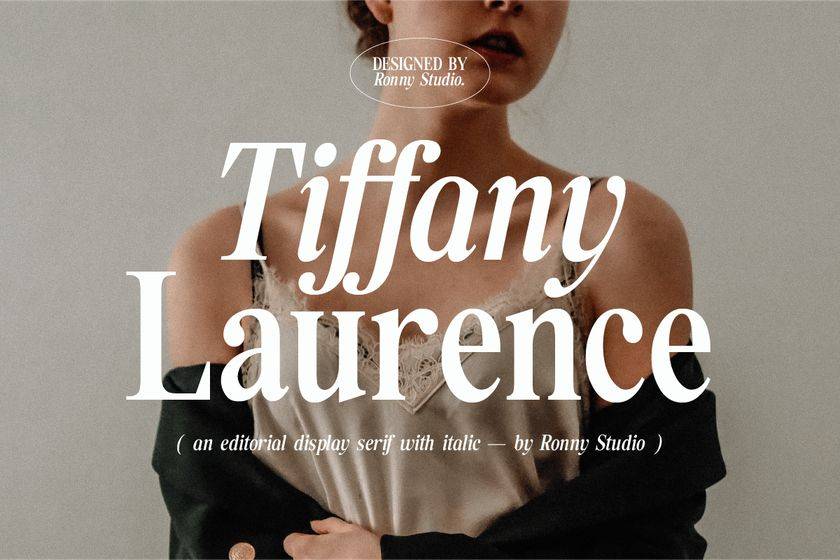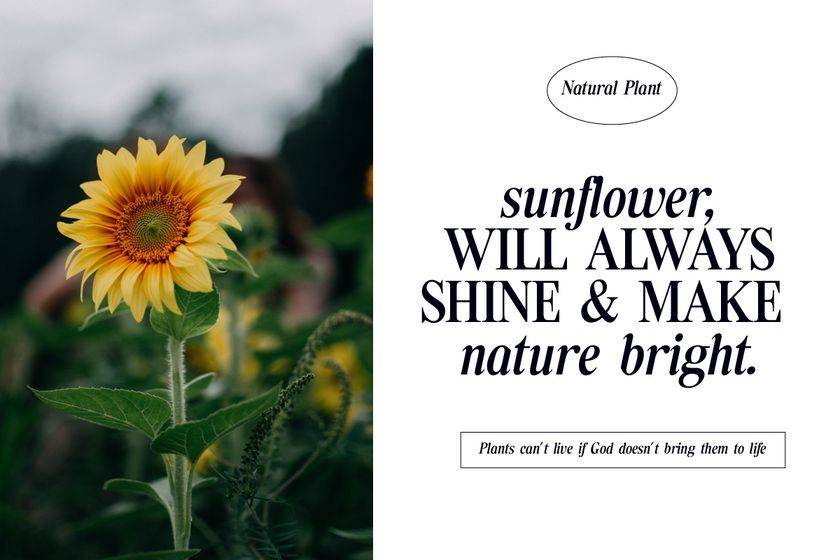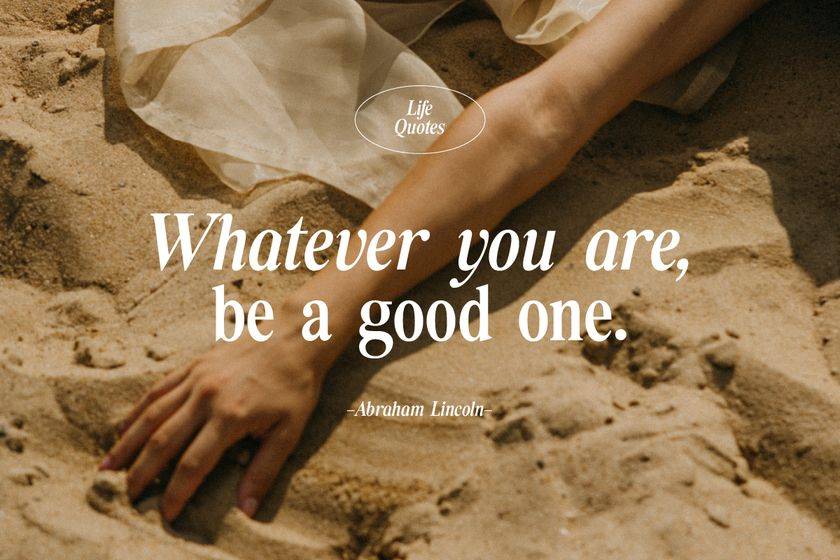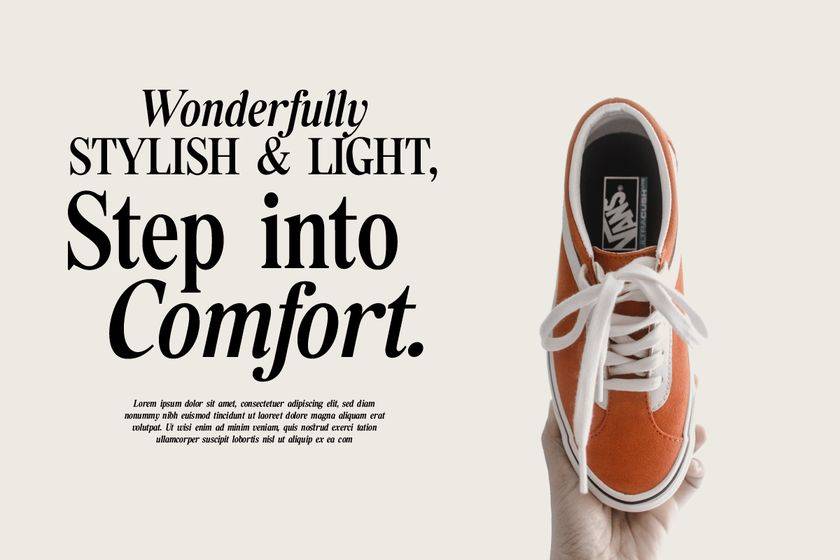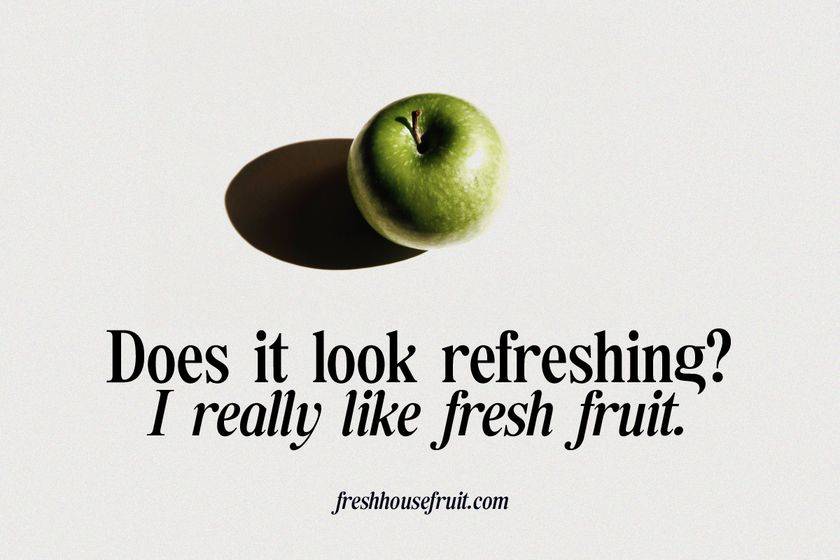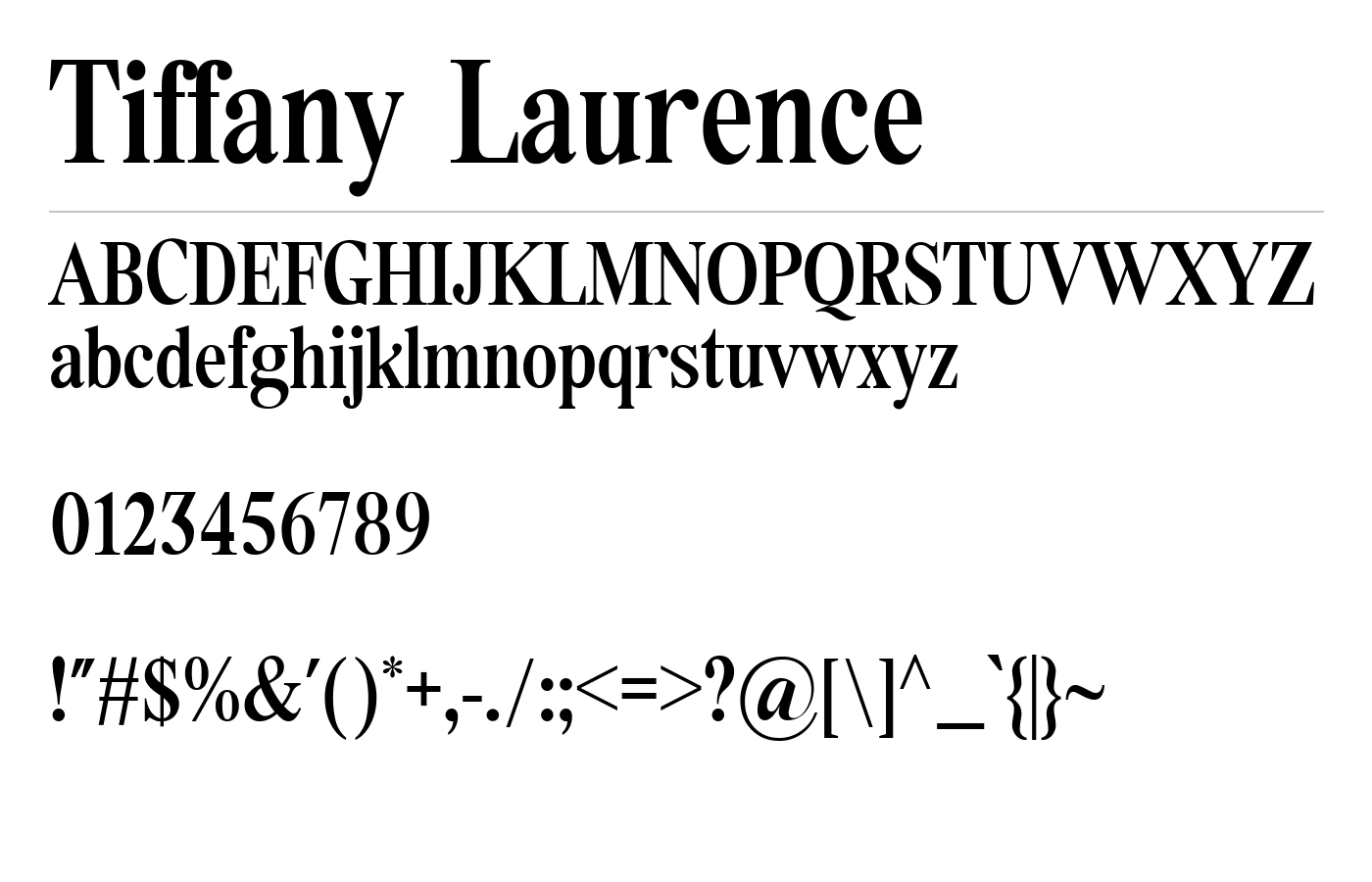
Tiffany Laurence is a refined serif typeface characterized by its elegant, high-contrast strokes and sharp, bracketed serifs that convey a classic yet sophisticated feel. With its moderately condensed width and distinct letterforms, including a single-story ‘a’ and a curved tail on the ‘Q’, it works beautifully for luxury branding, editorial headlines, and formal invitations where a timeless, polished look is desired. This font’s blend of traditional charm and modern clarity makes it an excellent choice for projects aiming to communicate elegance and professionalism.
Tiffany Laurence Font
About Tiffany Laurence Font
| Designer | Rony Rizki Jaya |